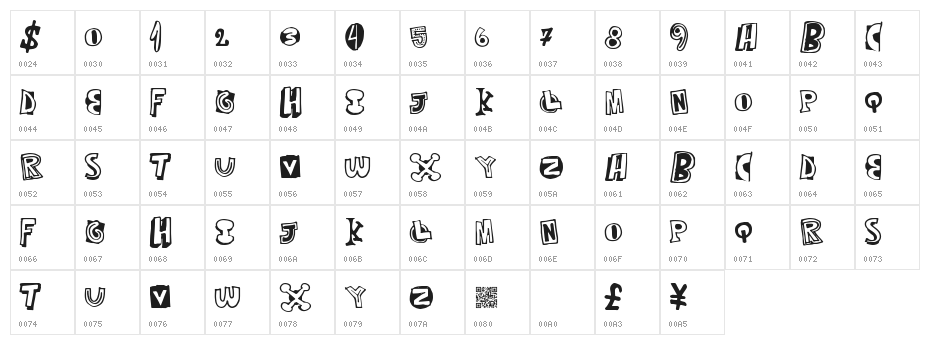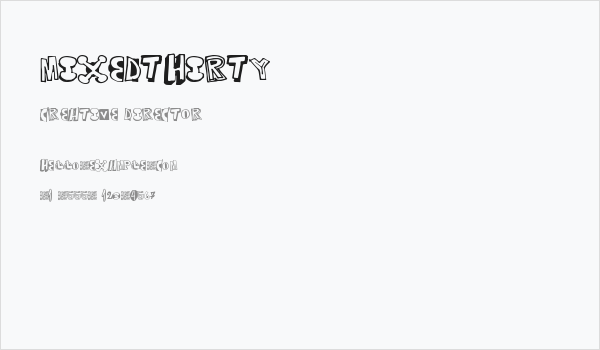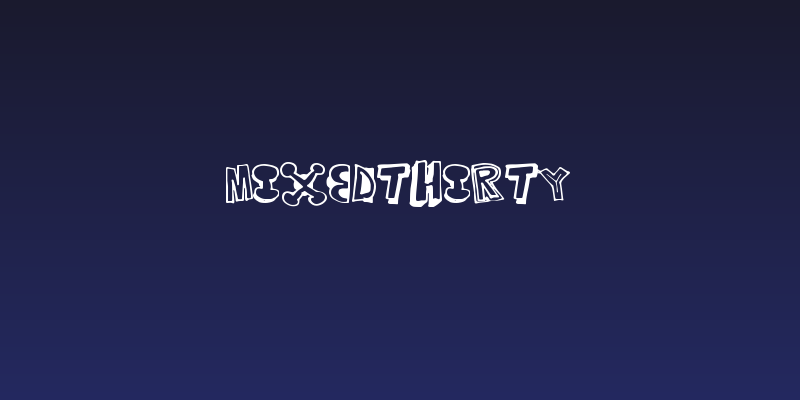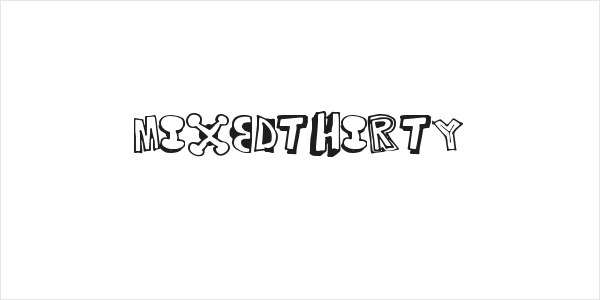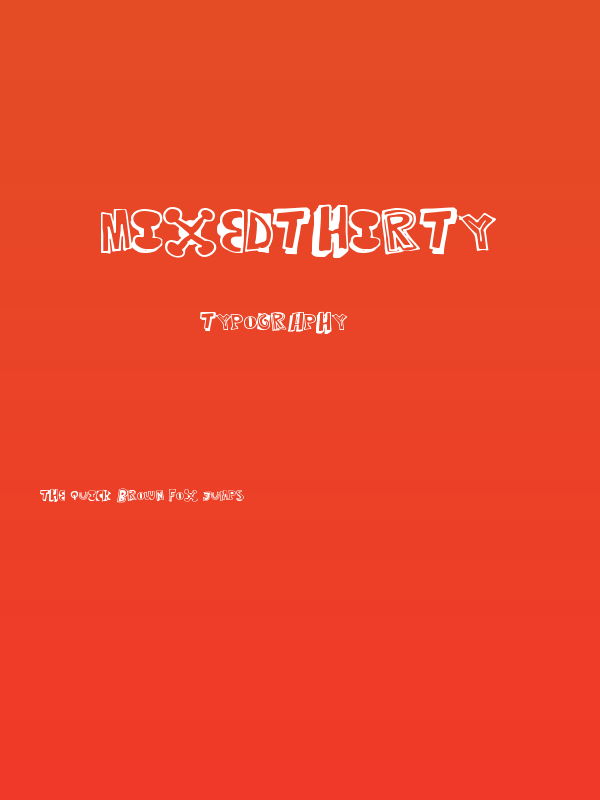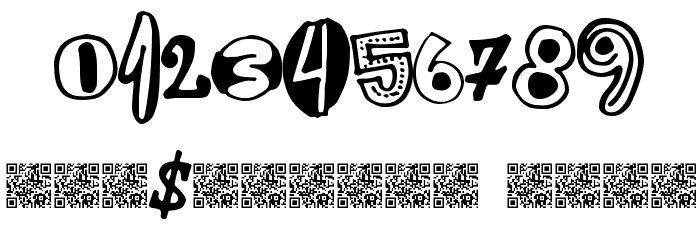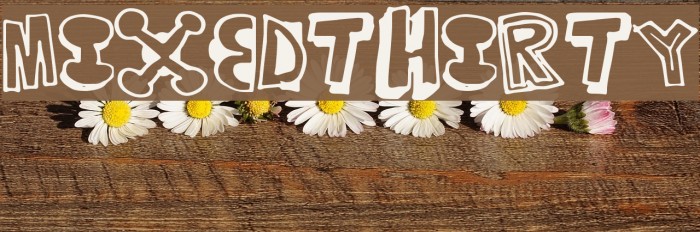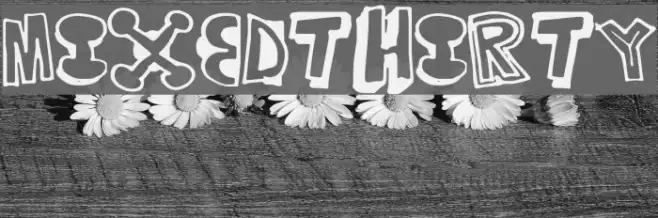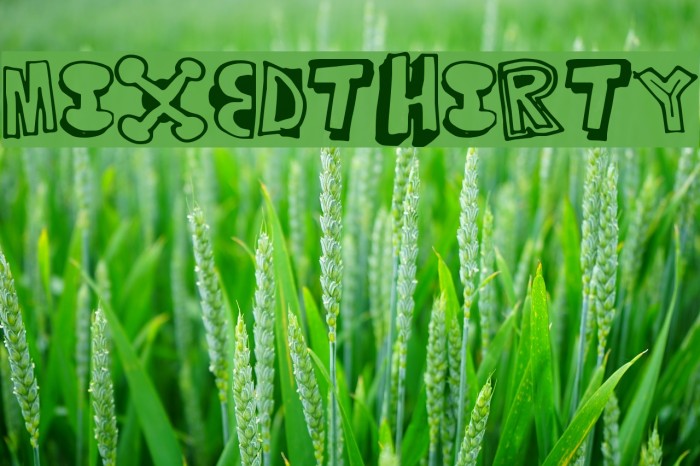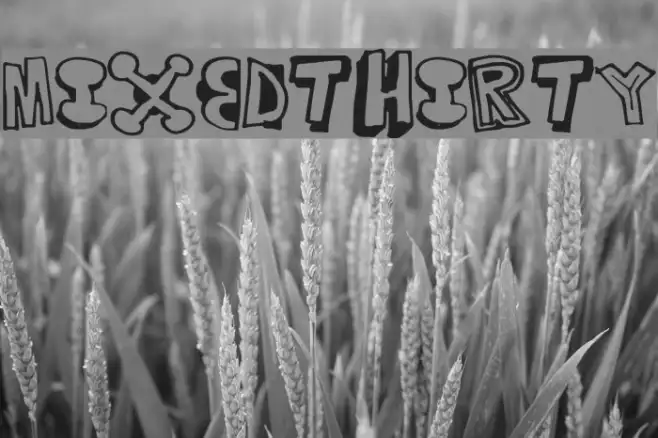
MixedThirty Font
MixedThirty Description
This font is a playful and eclectic collection of characters, each with its own unique style. The uppercase and lowercase letters are bold and varied, featuring a mix of thick and thin strokes, filled and outlined shapes, and quirky, irregular forms. The numbers and special characters continue this theme, adding a sense of fun and unpredictability. The overall design is reminiscent of a collage or ransom note, with each character standing out distinctly. This font is ideal for projects that require a bold, eye-catching display with a touch of whimsy and creativity.
| Proposed Projects | Ideal for children's books, playful branding, creative posters, and eye-catching headlines. |